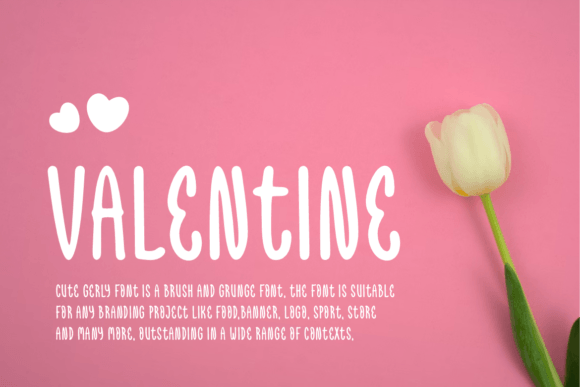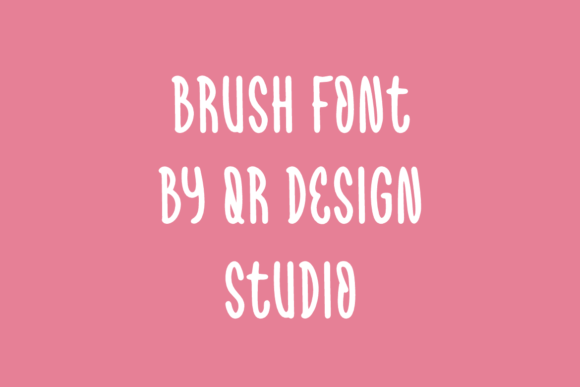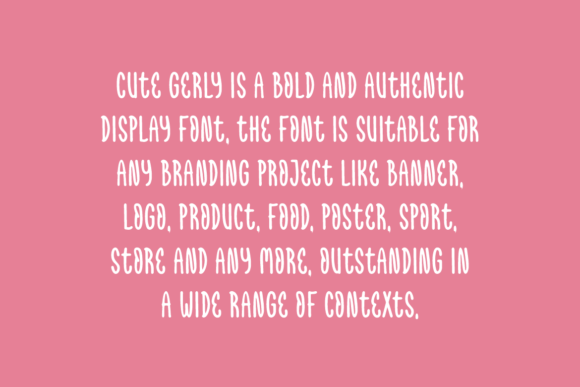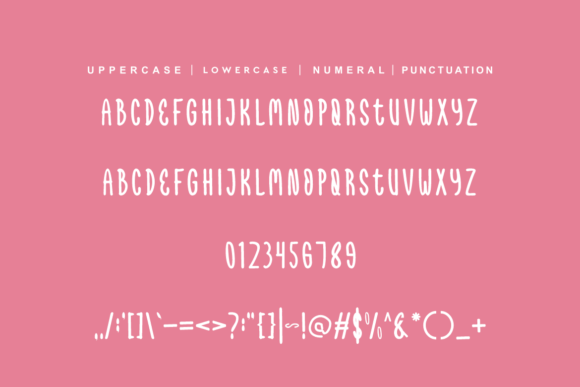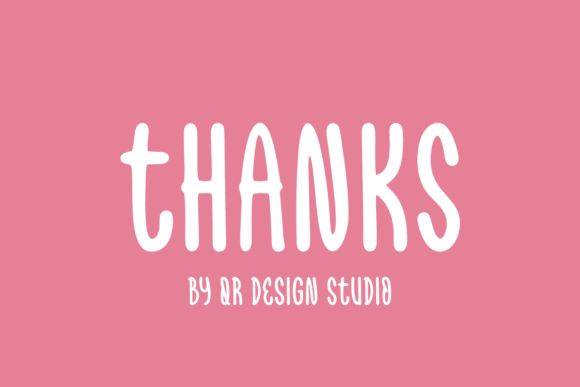
Cute Gerly Font: Add a Touch of Joy to Your Designs
Are you looking for a font that can bring a smile to your audience’s face? Look no further than Cute Gerly, a sweet and friendly handwritten font that’s perfect for adding a touch of joy to your designs. In this article, we’ll explore the features and benefits of Cute Gerly, and show you how to use it to take your designs to the next level.
What is Cute Gerly Font?
Cute Gerly is a beautiful, handwritten font that’s designed to bring a sense of fun and playfulness to your designs. With its sweet and friendly style, it’s perfect for use in a variety of applications, from cartoon-related designs and children’s games to quotes, titles, brand names, book covers, posters, and more.
Key Features of Cute Gerly Font
- Handwritten style: Cute Gerly has a unique, handwritten style that’s both personal and approachable.
- Sweet and friendly: The font’s sweet and friendly tone makes it perfect for designs that need to appeal to a younger audience.
- Highly legible: Despite its playful style, Cute Gerly is highly legible, making it easy to read and understand.
- Versatile: Cute Gerly can be used in a wide range of applications, from digital designs to print materials.
Benefits of Using Cute Gerly Font
So why choose Cute Gerly for your designs? Here are just a few benefits of using this lovely font:
- Adds a touch of joy: Cute Gerly’s playful style is guaranteed to bring a smile to your audience’s face.
- Creates a friendly tone: The font’s friendly tone helps to create a sense of approachability and warmth in your designs.
- Perfect for kids and families: Cute Gerly is a great choice for designs aimed at kids and families, as it’s both fun and engaging.
- Easily recognizable: The font’s unique style makes it easily recognizable, helping your brand or design to stand out.
Using Cute Gerly Font in Your Designs
So how can you use Cute Gerly in your designs? Here are a few ideas to get you started:
- Cartoon-related designs: Cute Gerly is a natural fit for cartoon-related designs, such as character logos, animations, and comics.
- Children’s games and apps: The font’s playful style makes it perfect for use in children’s games and apps.
- Quotes and titles: Cute Gerly is a great choice for use in quotes and titles, adding a touch of personality and flair.
- Book covers and posters: The font’s bold and playful style makes it perfect for use in book covers and posters.
Tips for Getting the Most Out of Cute Gerly Font
Here are a few tips for getting the most out of Cute Gerly:
- Experiment with colors: Cute Gerly looks great in a range of colors, so don’t be afraid to experiment and find the perfect hue for your design.
- Mix and match: Try pairing Cute Gerly with other fonts to create a unique and eye-catching combination.
- Use it consistently: To get the most out of Cute Gerly, use it consistently across your designs to create a cohesive look and feel.
Cute Gerly is a sweet and friendly handwritten font that’s perfect for adding a touch of joy to your designs. With its highly legible style and versatile nature, it’s a great choice for use in a wide range of applications. Whether you’re a designer, crafter, or simply someone who loves to create, Cute Gerly is a font that’s sure to bring a smile to your face.